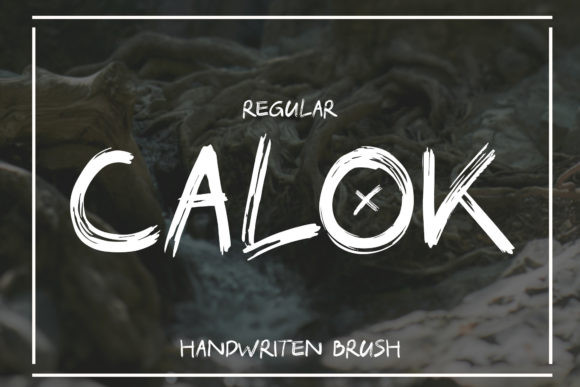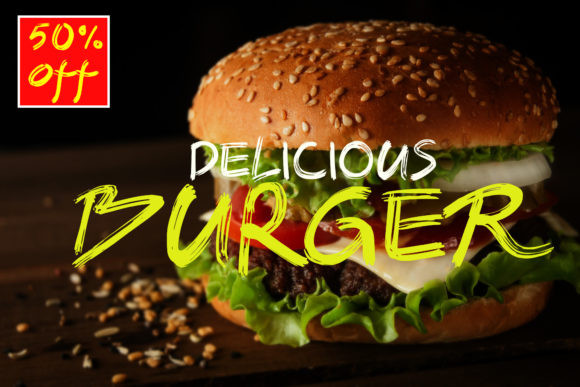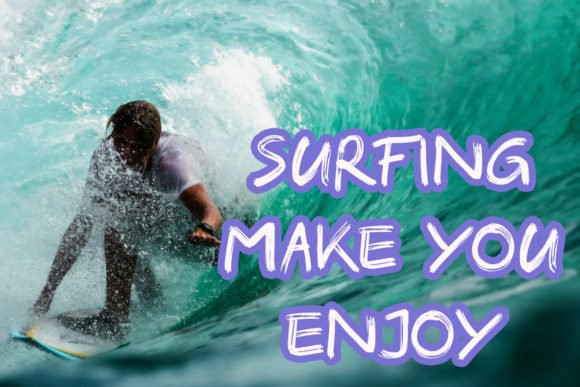
Calok Font
Calok is a cool, brushed display font. This font is suitable for designs such as t-shirts, sportswear, logos, advertisements, clothing, and more.